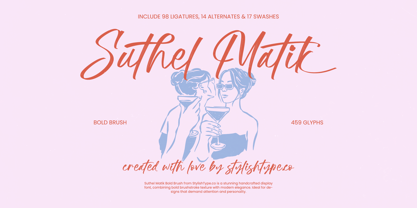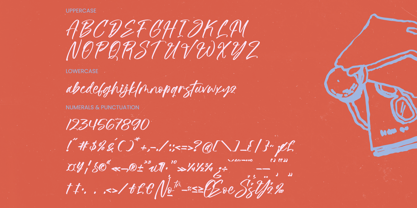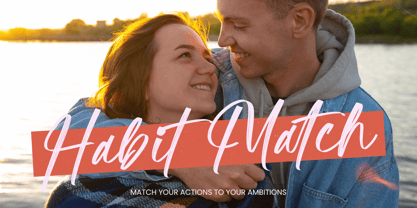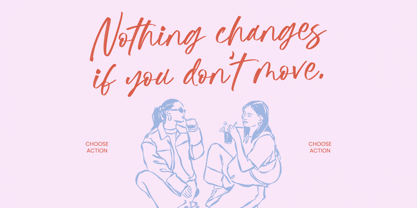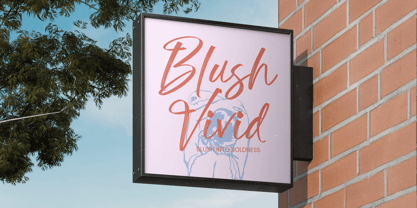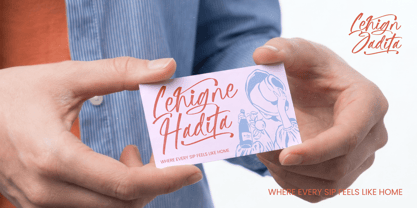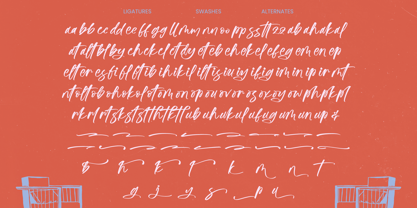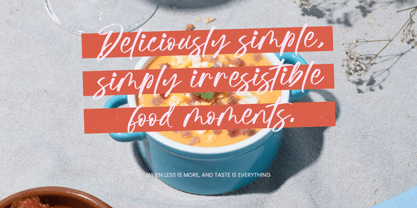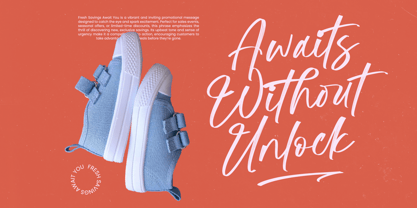
Suthel Matik
The Suthel Matik Font Family was designed by Heru Utama Putra and published by Stylishtype Studio. Suthel Matik contains 2 styles and family package options. More about this family
Suthel Matik - Bold Brush Font , from Stylishtype , Suitable for any projects such as: logos, branding projects, homeware designs, product packaging, mugs, quotes, posters, shopping bags, t-shirts, book covers, name card, invitation cards, greeting cards, label, photography, watermark, special events, and all your other luxury and beautiful projects that need a Luxury Script taste.